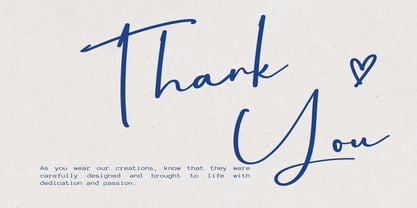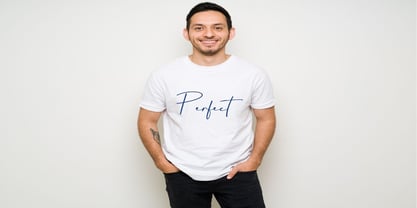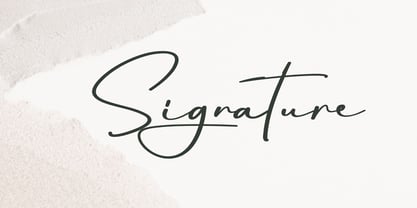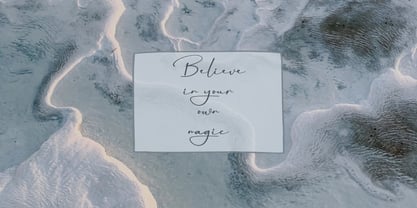
Unstoppable
by Dream Font
The Unstoppable Font Family was designed by Joel Kaden and published by Dream Font. Unstoppable contains 1 styles. More about this family
Unstoppable is an elegant handwritten font that exudes softness and grace. With graceful strokes and a feminine touch, this font captures the essence of a handwritten signature, adding a delicate touch to your projects. Perfect for invitations, greeting cards and personal branding, Unstoppable Signature brings a timeless charm to your written expression.
Designers: Joel Kaden
Foundry: Dream Font